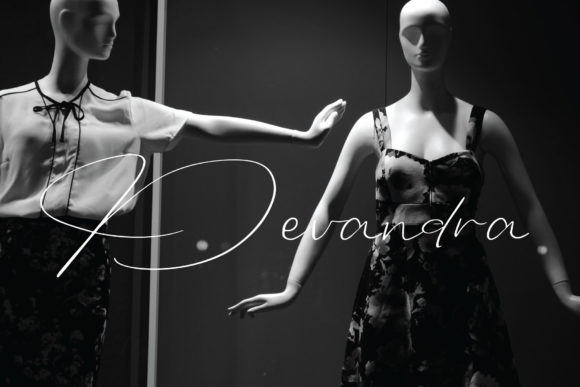
HomeScript FontsDevandra Font Script Fonts Devandra Font FacebookXPinterestWhatsApp Devandra Font Poster 2 Devandra Font Poster 3 Devandra Font Poster 4 About Devandra Font Devandra is a sweet and simple script that will add a bold twist on any design project! DOWNLOAD NOW People also explored Acid Font Type 2 Font Little Giant Font Love Said Font Fidena Font Ocean Six Font Solfia Font My Heart Font Amsador Font 293 0 TagsDevandra Font Previous articleSandwell FontNext articleCinnamon Font LEAVE A REPLY Cancel reply Comment: Please enter your comment! Name:* Please enter your name here Email:* You have entered an incorrect email address! Please enter your email address here Website: Save my name, email, and website in this browser for the next time I comment. Personal Use Free Cuttering Personal Use Free Read more about this font Marthissa Personal Use Free Read more about this font Heart Personal Use Free Read more about this font Daisy Script Personal Use Free Read more about this font BLOG Where to Buy American Fonts Online in 2024 Where to Buy American Fonts Online: The Ultimate Guide for 2024 Looking for the perfect American font to elevate your design projects? You're in the... Elegant Wedding Invitation Fonts – Handwritten & Script Fonts How to Cut Any Font on Cricut: Convert a Font to SVG (Free) Transform Your Website: Elevate Your Typography with 7 Best Web Font Generators